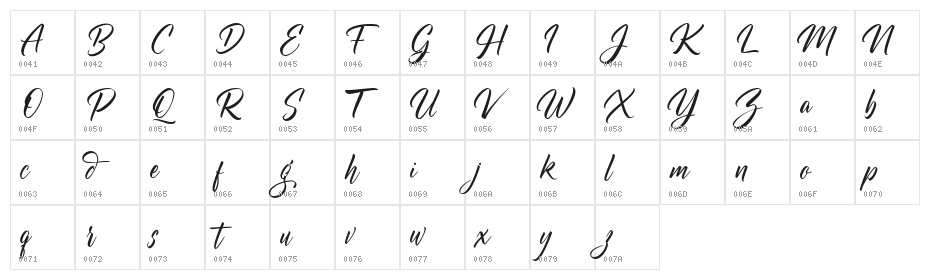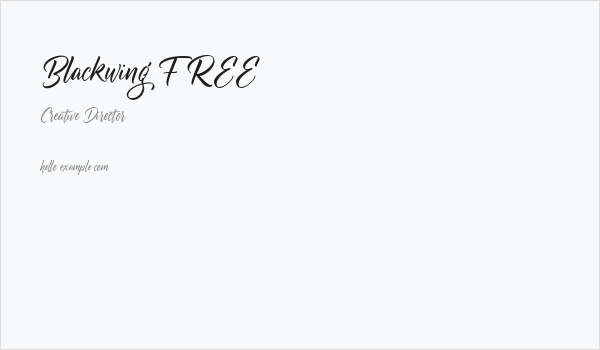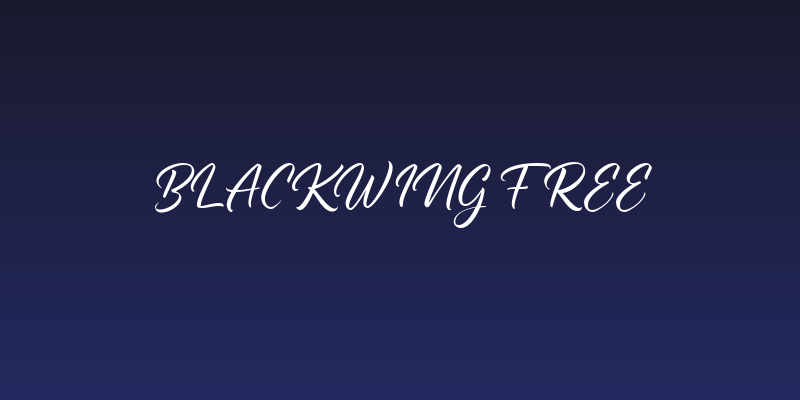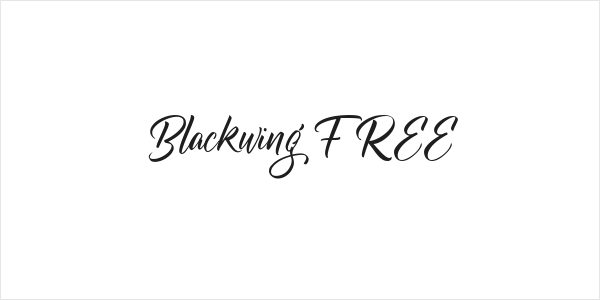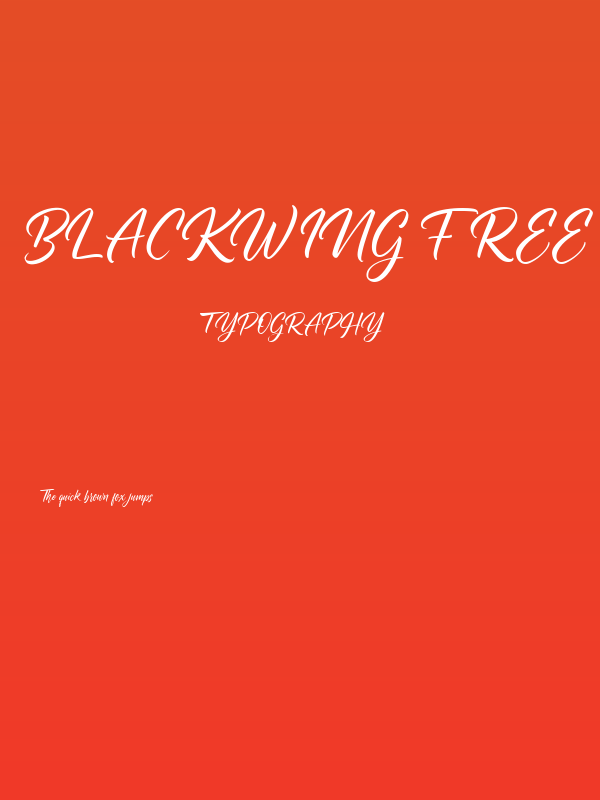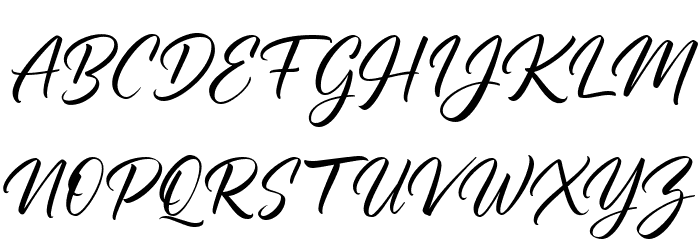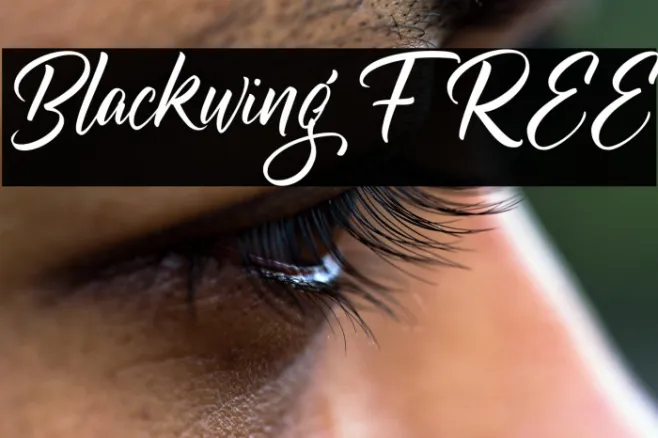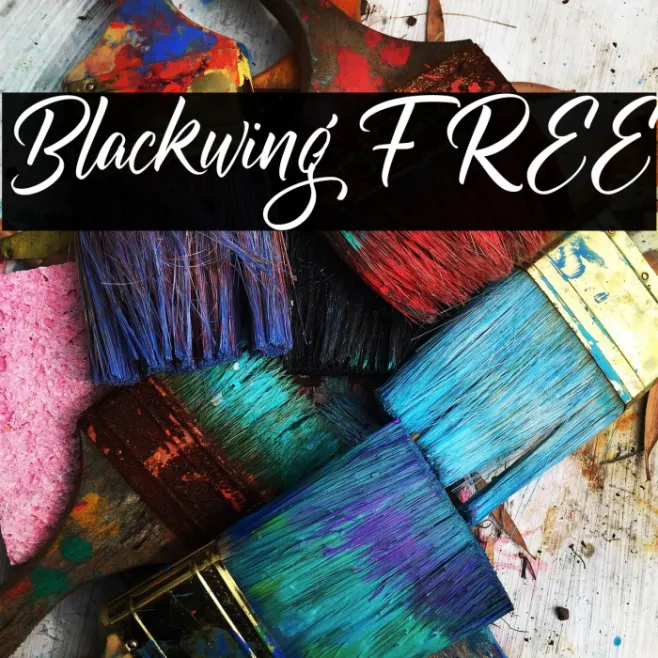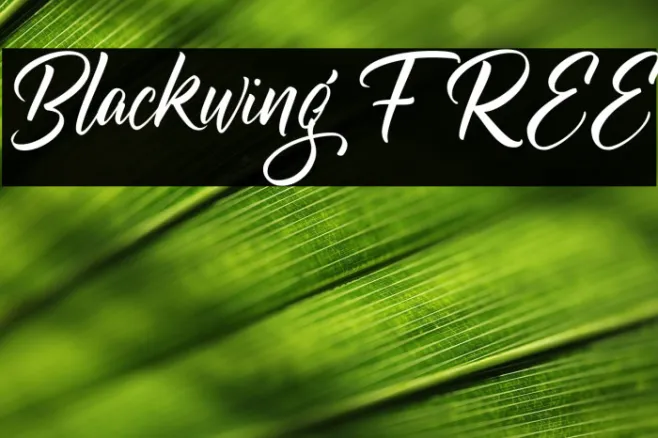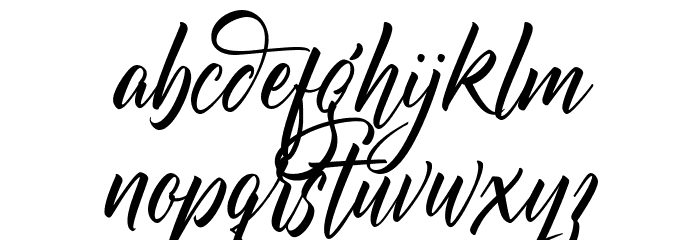
Blackwing FREE Font
Blackwing FREE Description
This elegant script font features fluid, cursive strokes that convey a sense of sophistication and grace. The uppercase letters are characterized by sweeping curves and flourishes, while the lowercase letters maintain a consistent flow with slightly exaggerated loops and tails. The font's overall appearance is both stylish and legible, making it suitable for a variety of design applications. The characters are well-proportioned, with a balanced mix of thick and thin strokes that add to its visual appeal. This font is ideal for projects that require a touch of elegance and refinement.
| Proposed Projects | Wedding invitations, luxury branding, greeting cards, and elegant logo designs. |